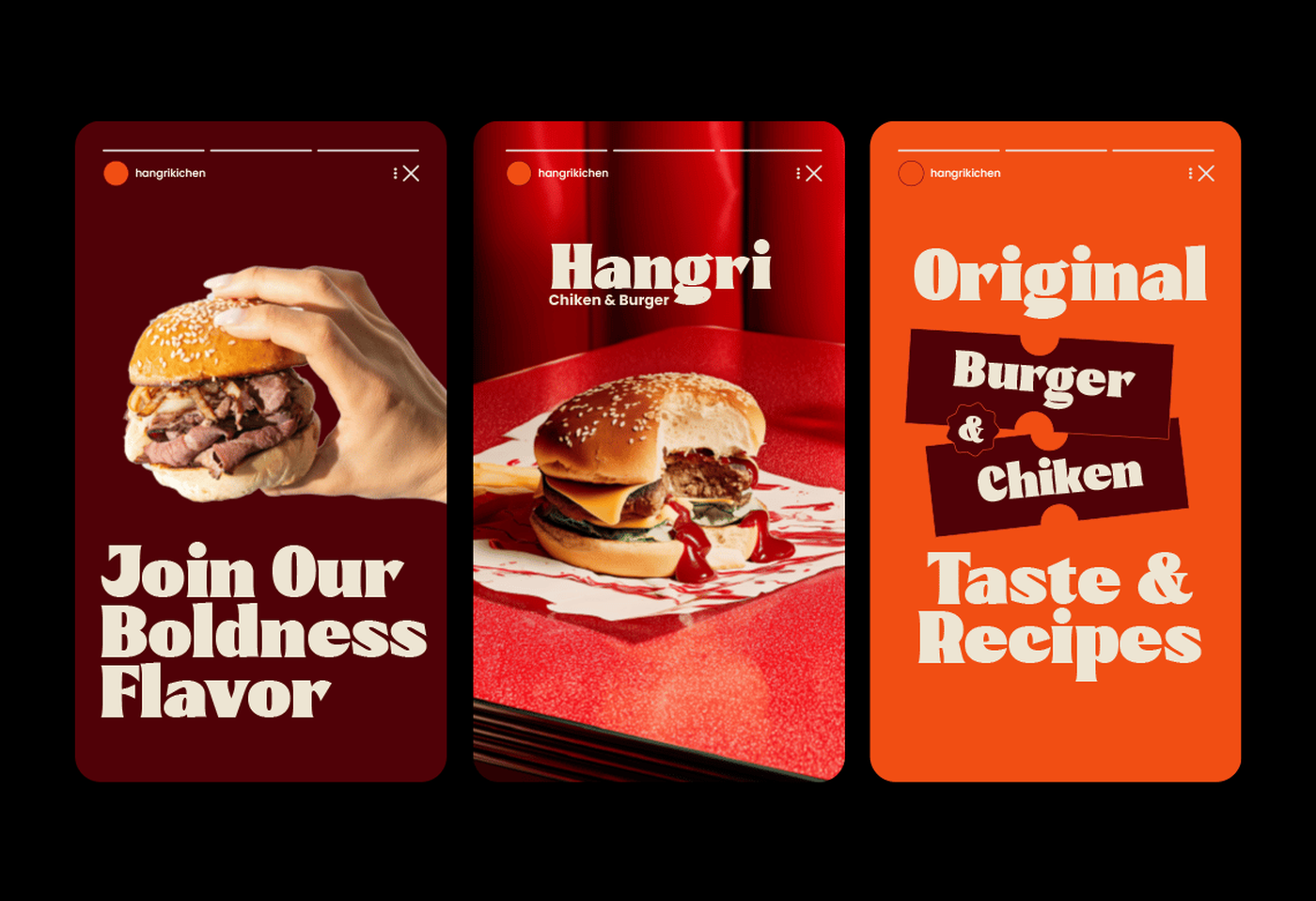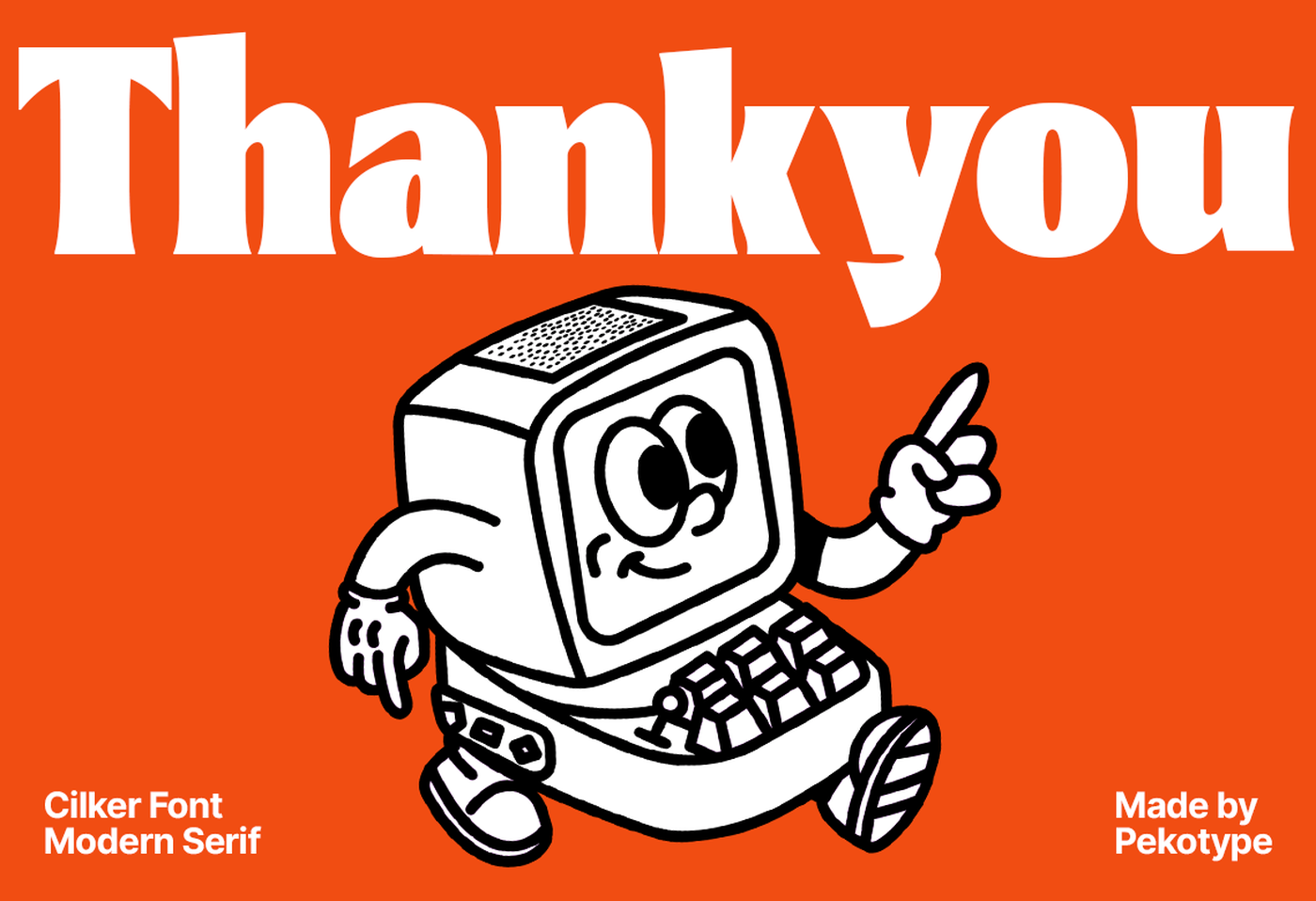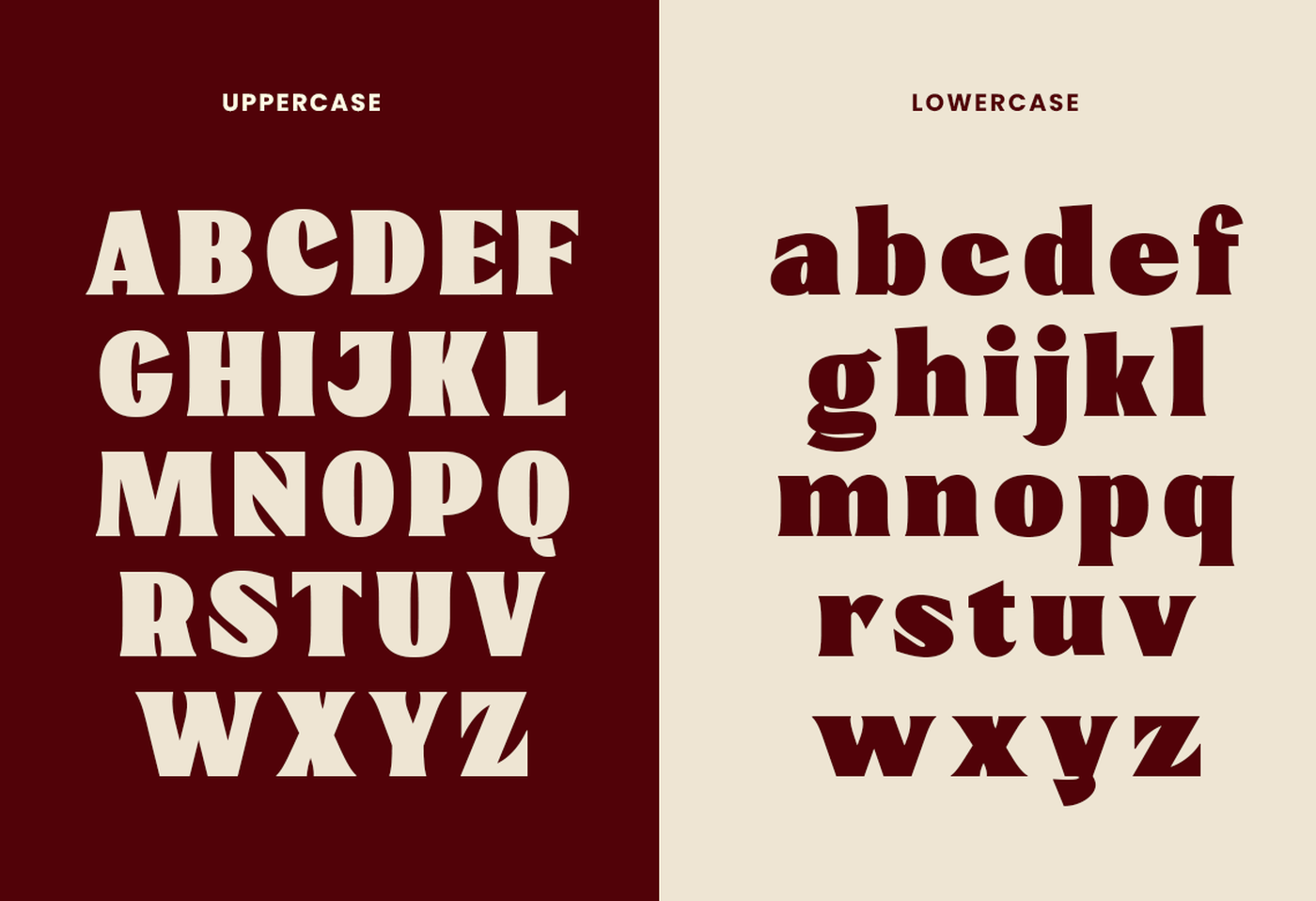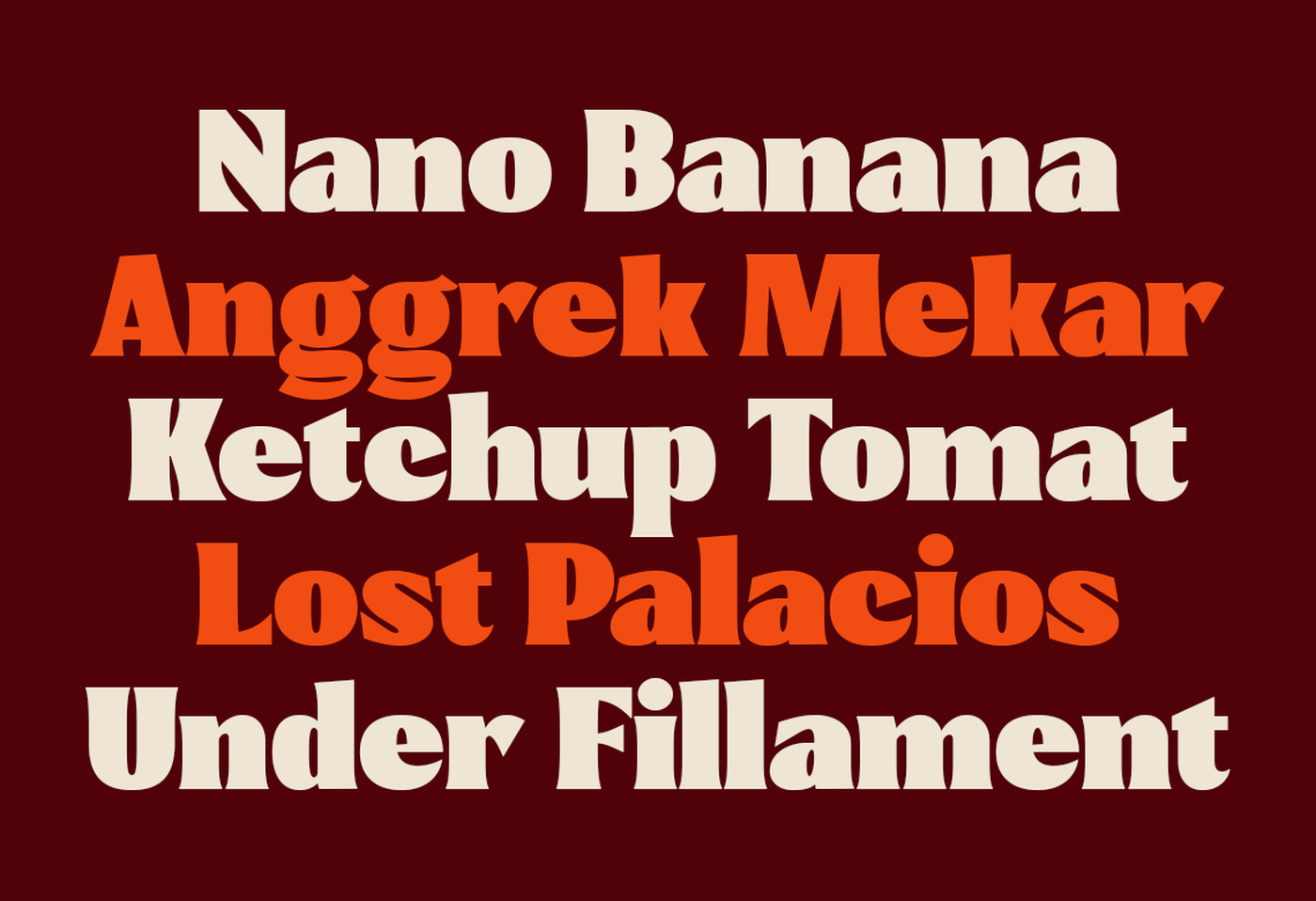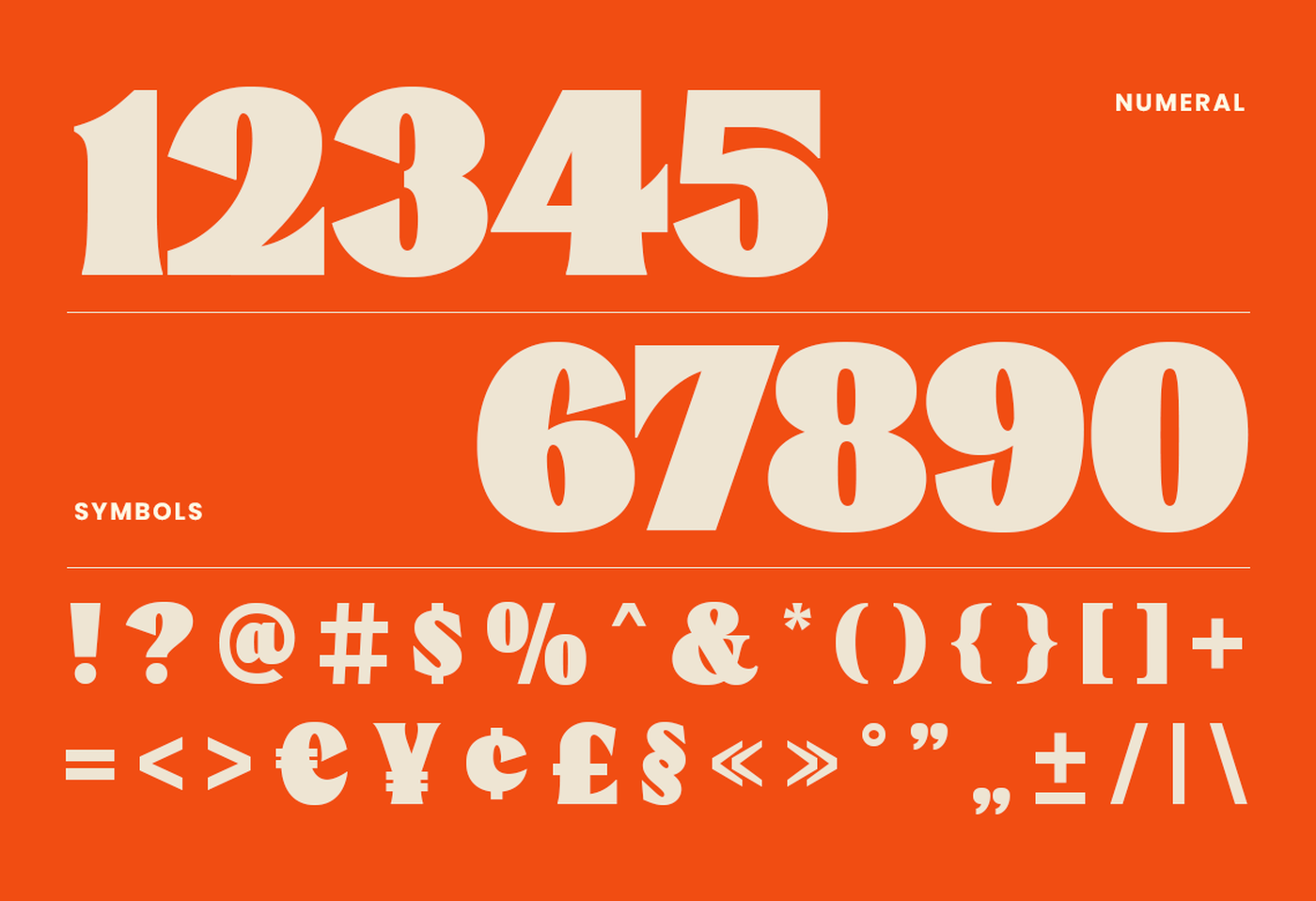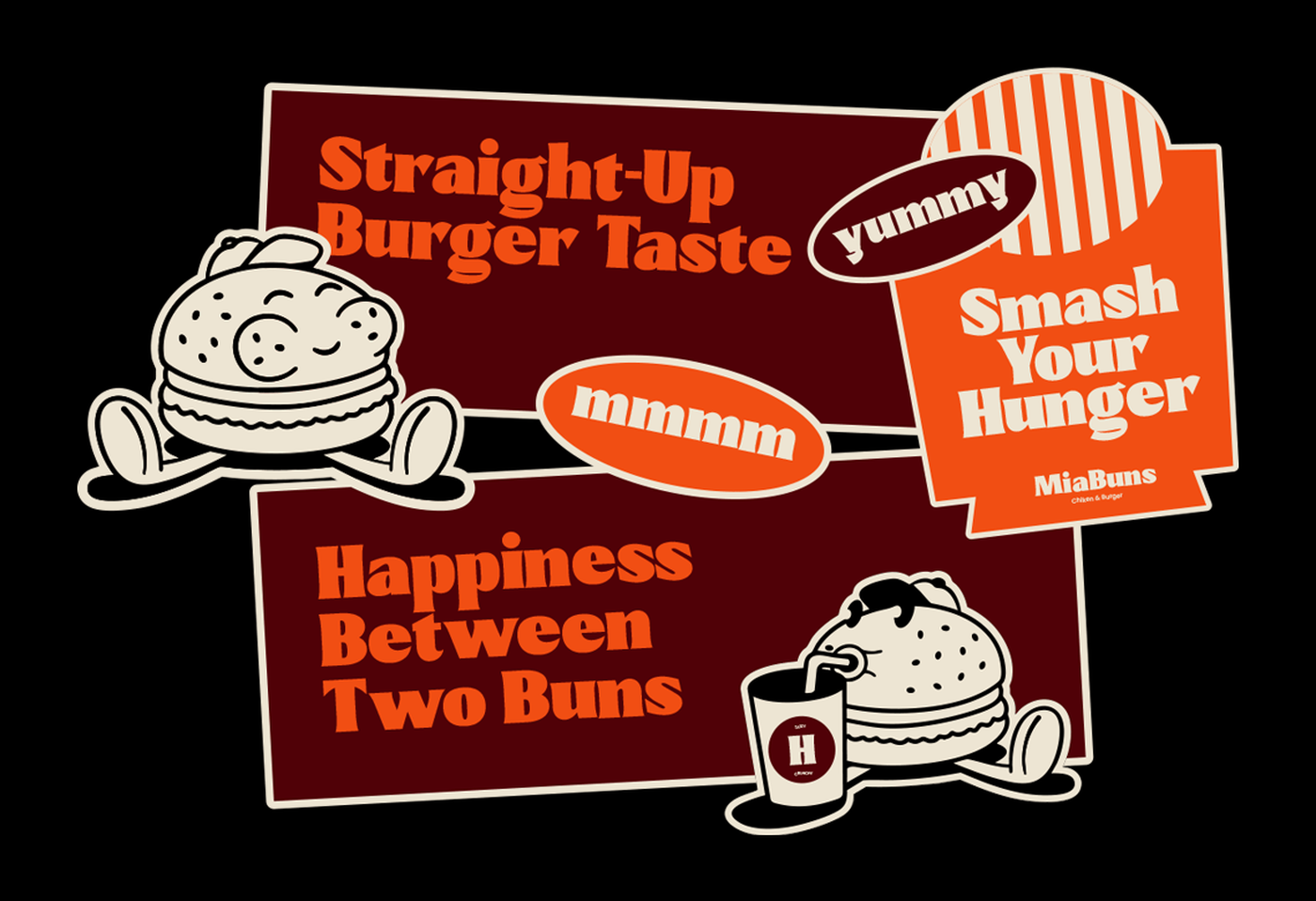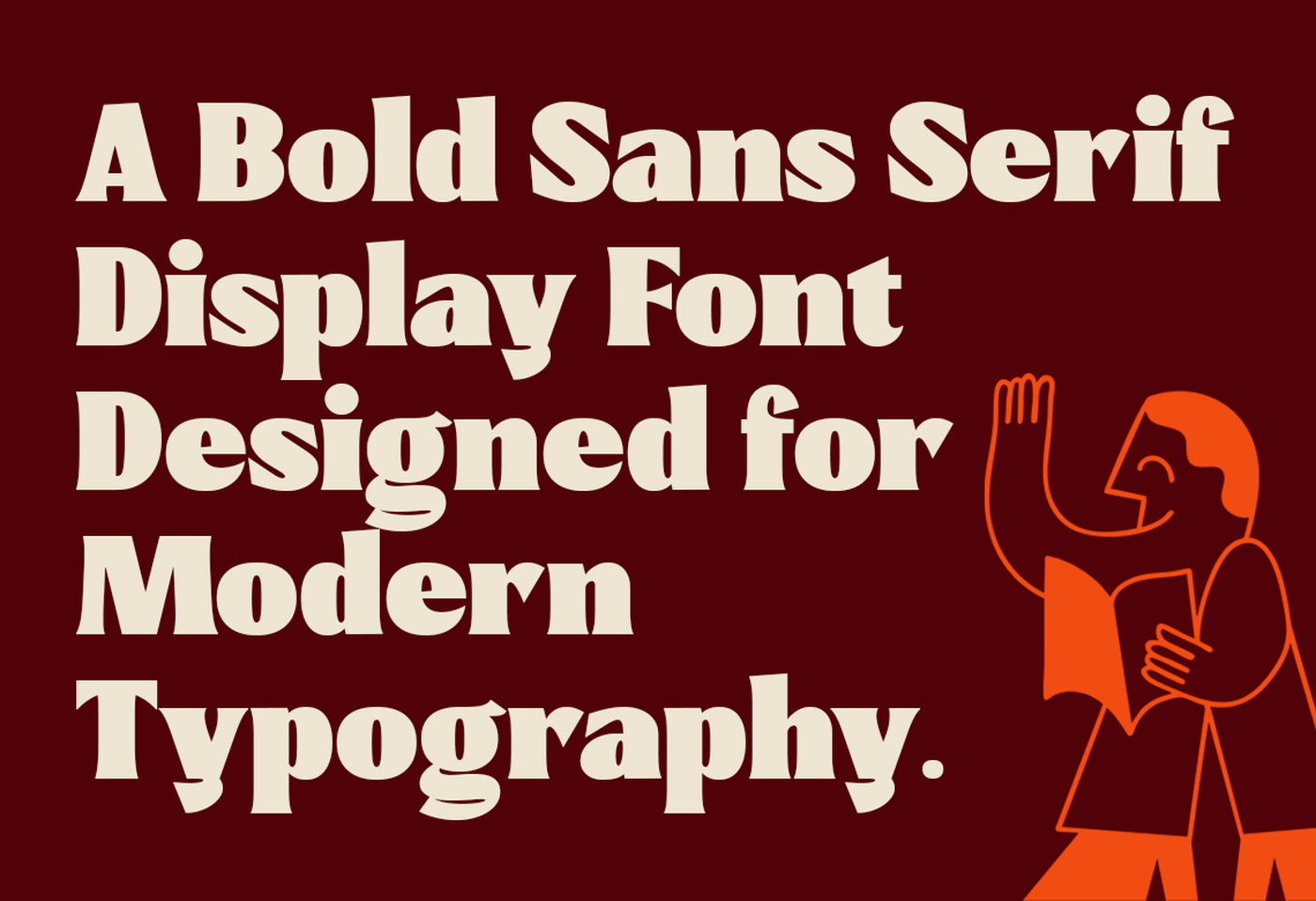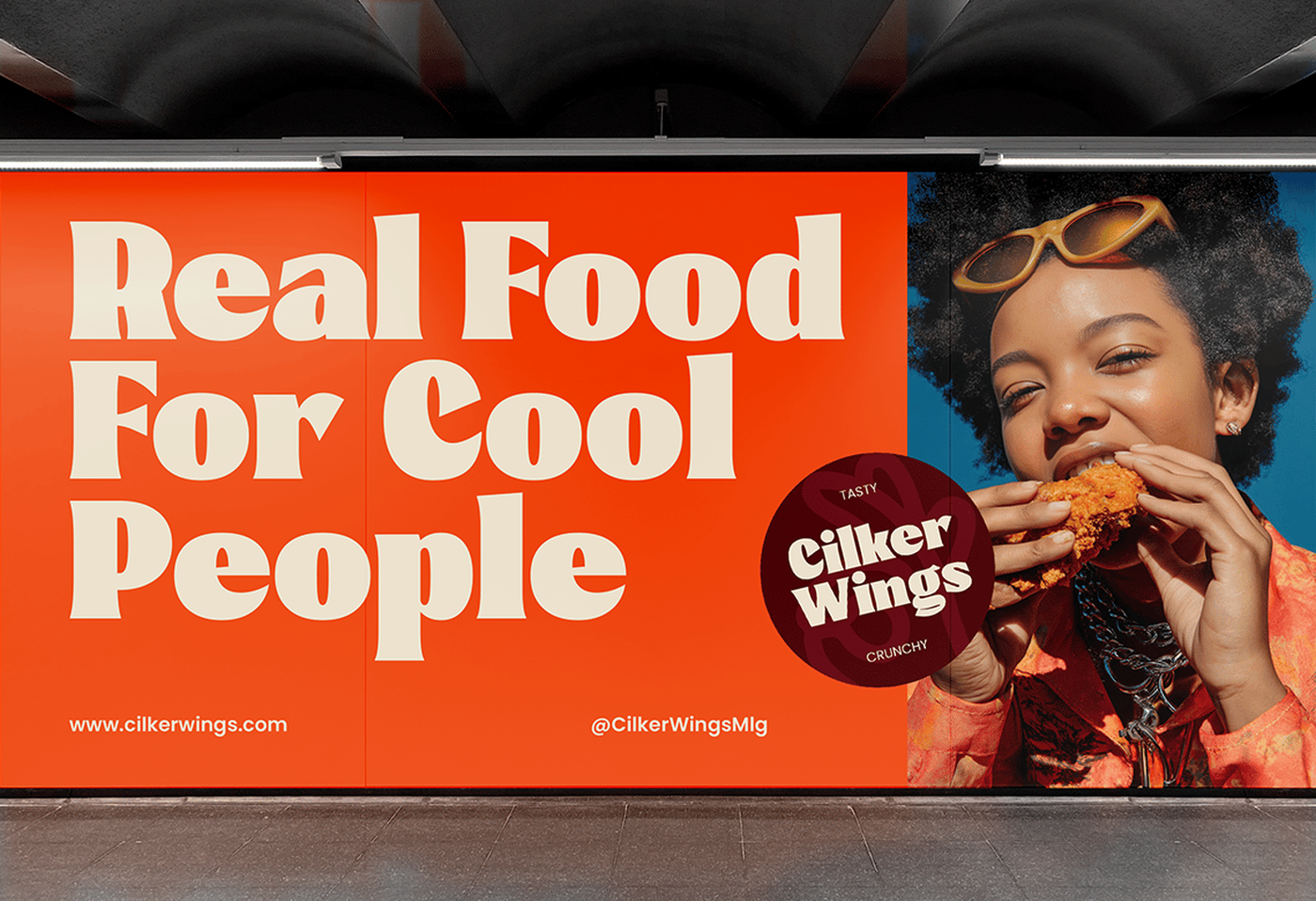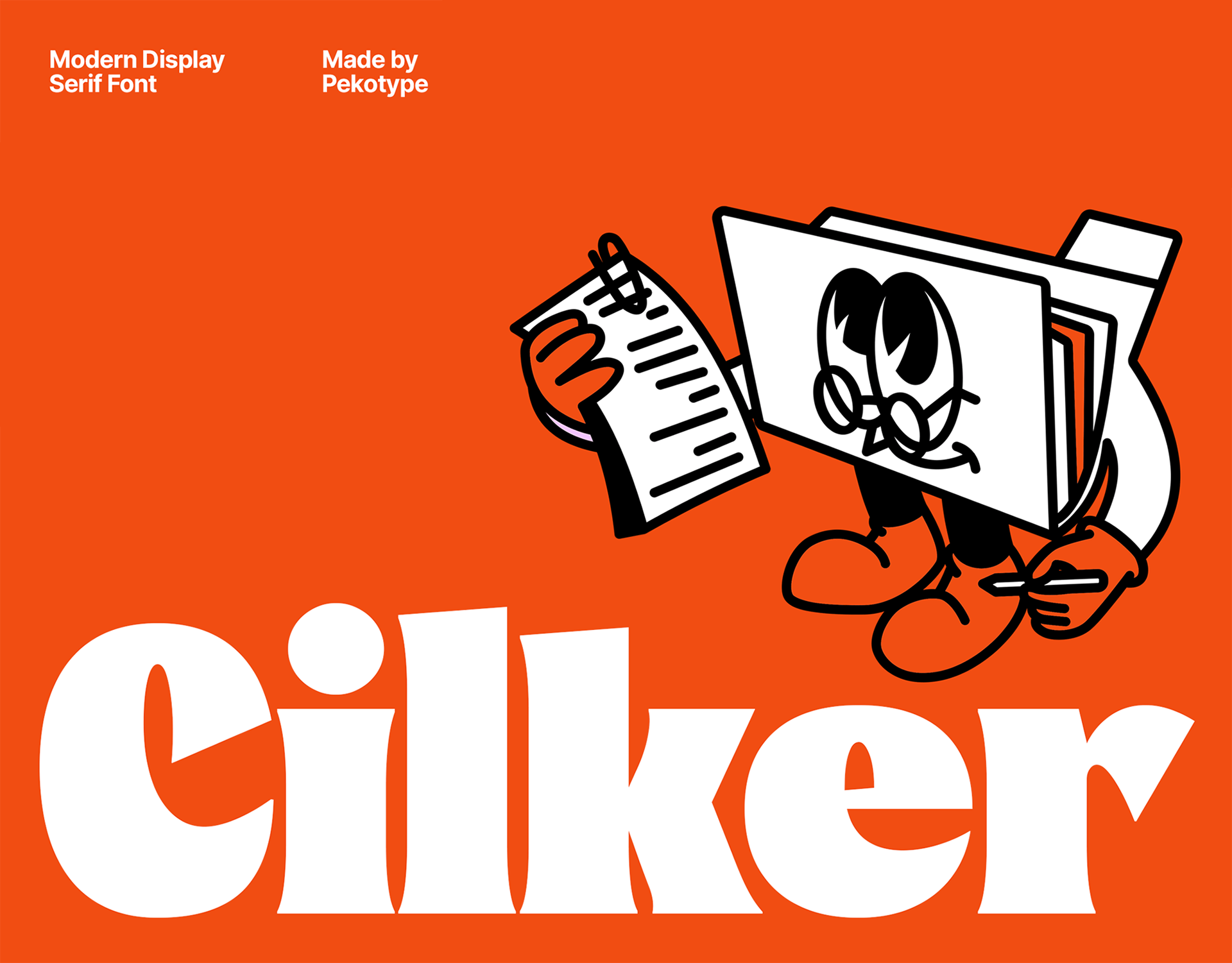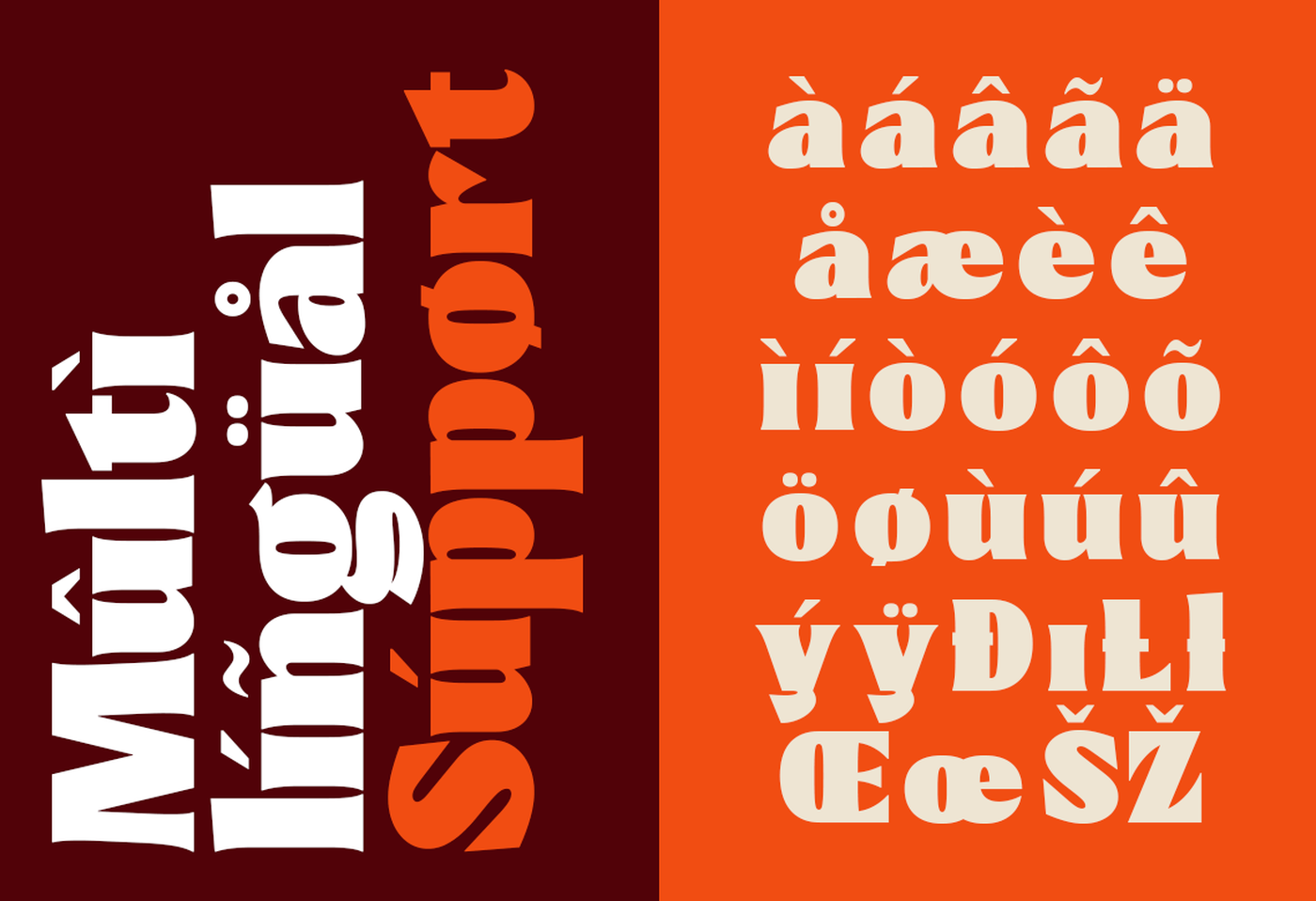
Cilker - Bold Display Sans Serif Font
CILKER is a bold and modern sans serif display typeface created to make a strong visual statement. With thick strokes, confident shapes, and a playful yet clean construction, CILKER delivers high impact and excellent readability—perfect for designs that need to stand out instantly. Designed with uppercase and lowercase characters and complete multilingual support, CILKER is highly versatile for both digital and print use. Its modern sans serif style makes it ideal for branding, logos, packaging, menus, posters, marketing campaigns, social media graphics, advertisements, and promotional materials, especially for food, lifestyle, and youth-oriented brands.